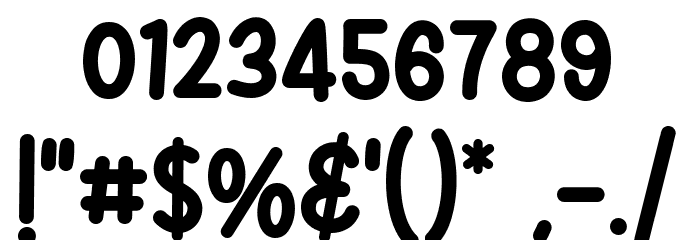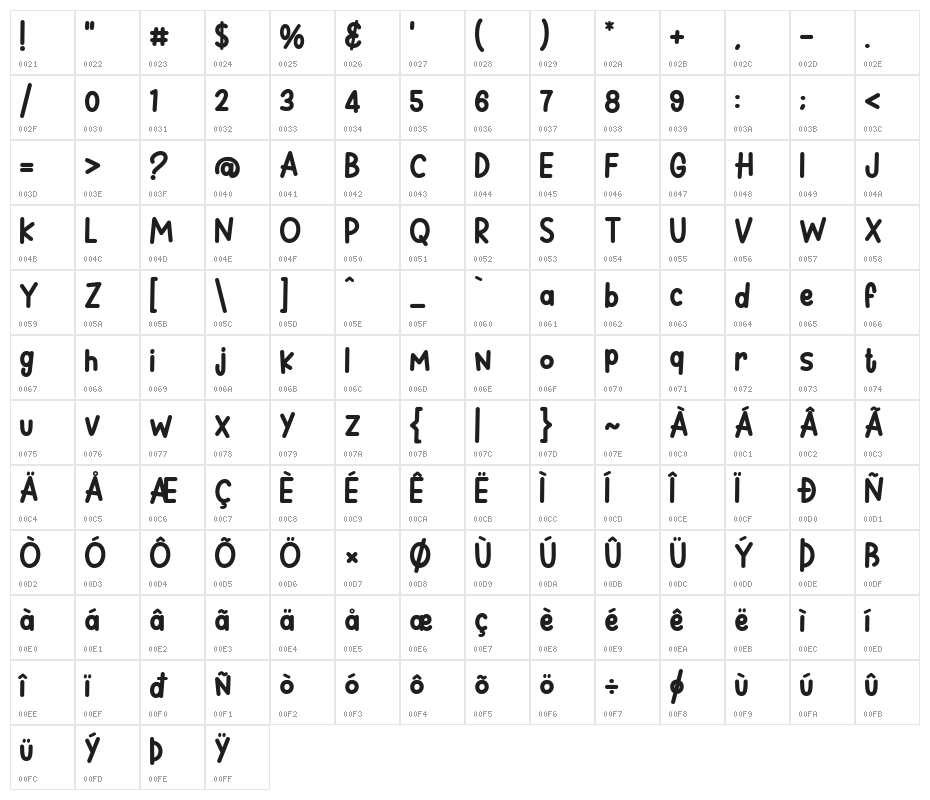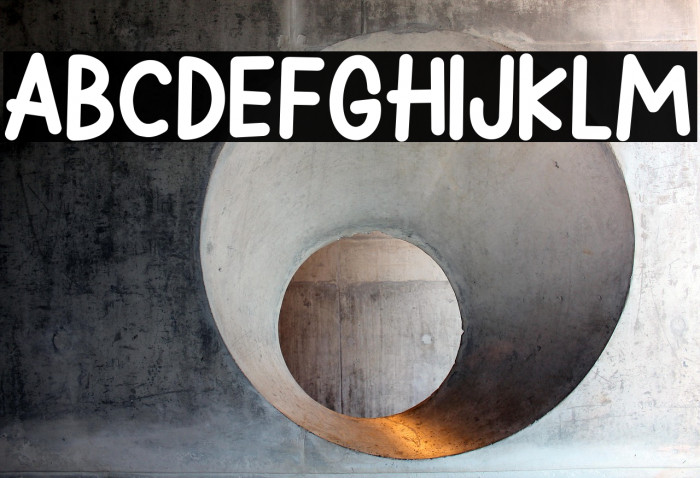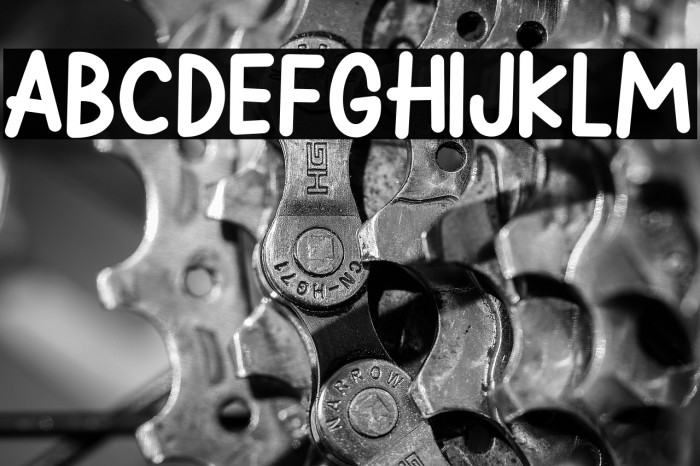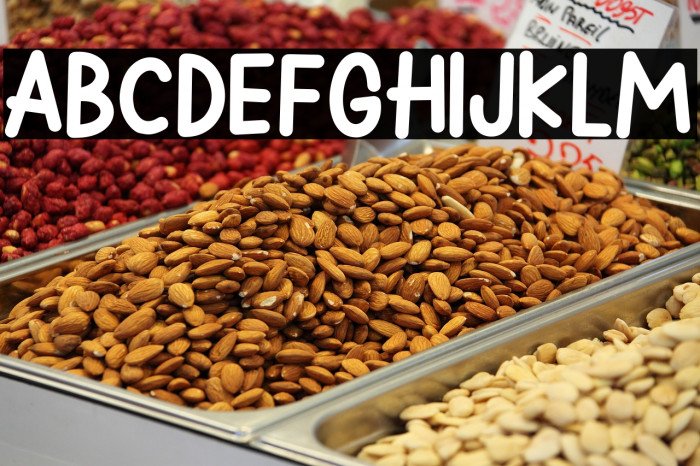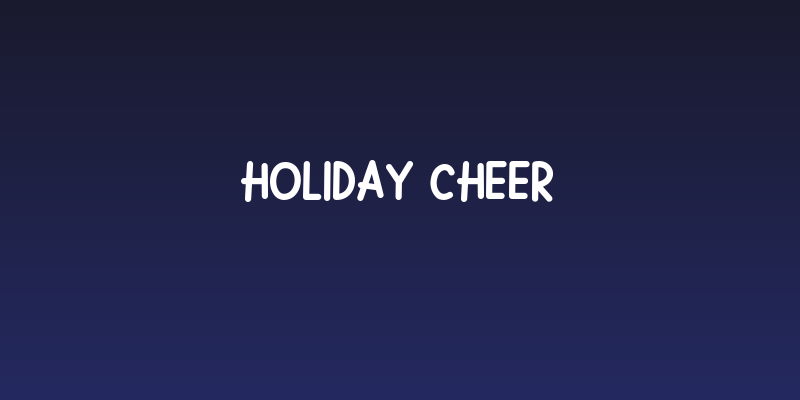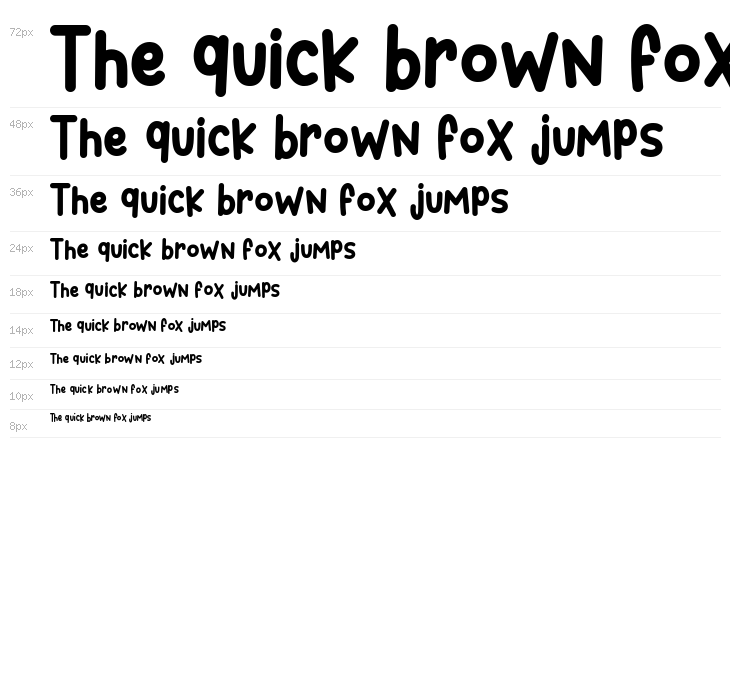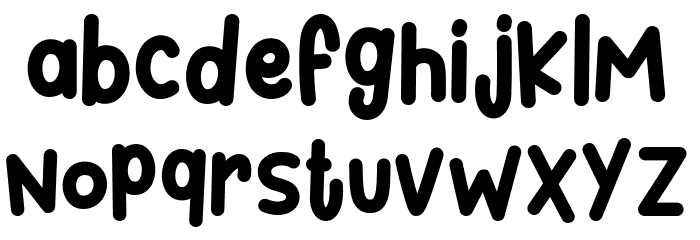
Holiday Cheer Font
Holiday Cheer Description
This playful and whimsical font features rounded, bold characters that exude a sense of fun and cheerfulness. The letters have a hand-drawn quality, with slightly irregular strokes that add to its charm. The uppercase and lowercase letters maintain a consistent style, while the numbers and special characters complement the overall aesthetic. The font's thick strokes and rounded edges make it highly legible, even at smaller sizes, and its informal style is perfect for creating a friendly and approachable feel.
| Proposed Projects | Ideal for holiday cards, children's books, playful branding, and festive event invitations. |